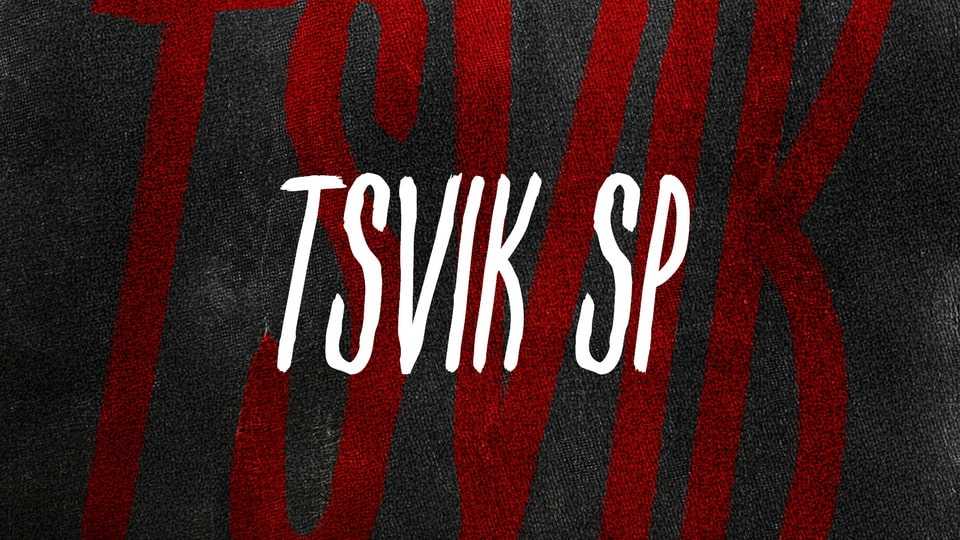
Download Tsvik SP font, a narrow, expressive display typeface with a regular graphic rhythm, inspired by the famous 1990 poster “We Won’t Let It Happen Again!” by Yefim Tsvik.
Designer: Sasha Pavljenko